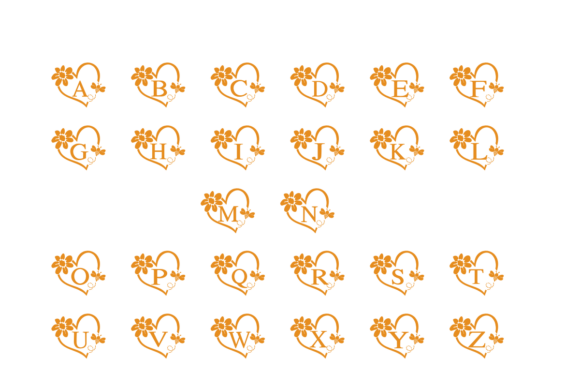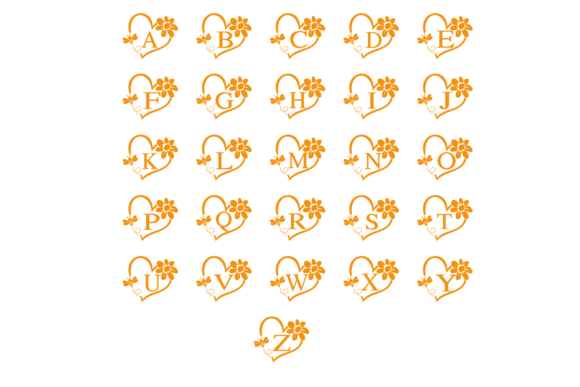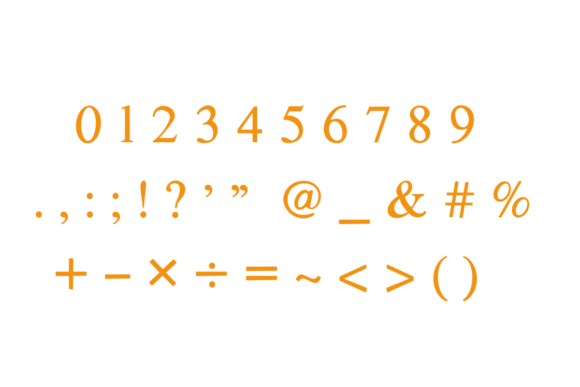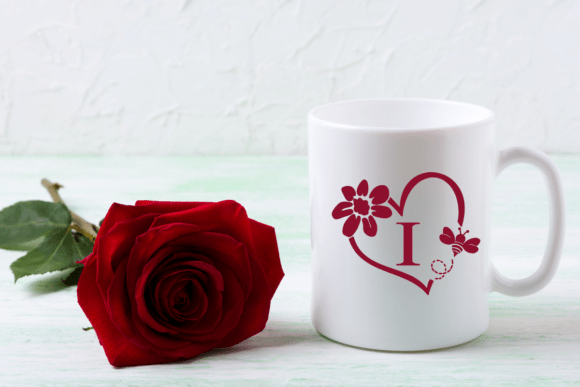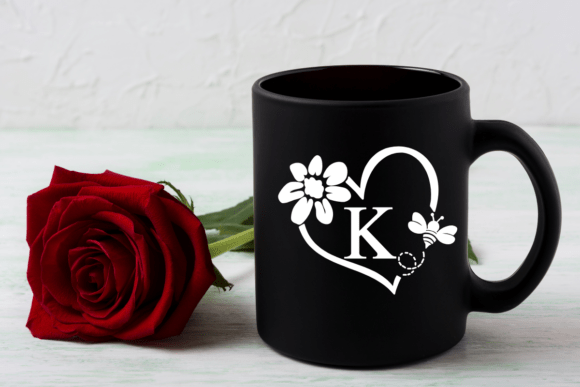
Bee Heart Frame Font: A Sweet Addition to Your Design Collection
Are you a designer, crafter, or DIY enthusiast looking for a unique and charming font to add to your collection? Look no further than the Bee Heart Frame Font! This decorative font is perfect for a variety of creative projects, from personal notes and diaries to professional designs and marketing materials.
What is Bee Heart Frame Font?
Bee Heart Frame Font is a beautifully designed decorative font that features intricate heart-shaped frames and adorable bee illustrations. The font is perfect for adding a touch of whimsy and charm to any design project. Its unique and eye-catching style makes it ideal for a wide range of applications, from stationery and greeting cards to social media posts and marketing materials.
Uses for Bee Heart Frame Font
So, what can you do with Bee Heart Frame Font? The possibilities are endless! Here are some ideas to get you started:
- Note-taking and journaling: Add a touch of personality to your notes and diary entries with Bee Heart Frame Font. It’s perfect for bullet journaling, and scrapbooking.
- Greeting cards and invitations: Create beautiful and unique greeting cards, invitations, and party decorations with Bee Heart Frame Font.
- Banners and signs: Use Bee Heart Frame Font to create eye-catching banners and signs for special occasions, such as weddings, birthdays, and holidays.
- Social media posts: Add a touch of charm to your social media posts and stories with Bee Heart Frame Font. It’s perfect for creating engaging and shareable content.
- Merchandise and products: Use Bee Heart Frame Font to create unique and personalized merchandise, such as mugs, t-shirts, and tote bags.
- Stationery and paper crafts: Add Bee Heart Frame Font to your stationery and paper crafts, such as cards, gift tags, and journal pages.
Benefits of Using Bee Heart Frame Font
So, why choose Bee Heart Frame Font for your design projects? Here are some benefits of using this beautiful font:
- Unique and eye-catching: Bee Heart Frame Font is a one-of-a-kind font that will add a touch of personality to any design project.
- Versatile: This font can be used for a wide range of applications, from personal projects to professional designs.
- Customizable: You can customize Bee Heart Frame Font to fit your design style, from changing colors to adjusting font sizes.
Tips for Using Bee Heart Frame Font
Here are some tips for getting the most out of Bee Heart Frame Font:
- Experiment with colors: Try out different color combinations to find the perfect match for your design project.
- Mix and match: Combine Bee Heart Frame Font with other fonts and design elements to create a unique and eye-catching design.
- Keep it simple: Don’t be afraid to keep your design simple and clean. Bee Heart Frame Font can stand alone or be paired with other design elements.
Bee Heart Frame Font is a beautiful and versatile decorative font that’s perfect for designers, crafters, and DIY enthusiasts. With its unique and eye-catching style, it’s ideal for a wide range of applications, from personal notes and diaries to professional designs and marketing materials. Whether you’re looking to add a touch of whimsy to your designs or create a bold and eye-catching statement, Bee Heart Frame Font is the perfect choice.